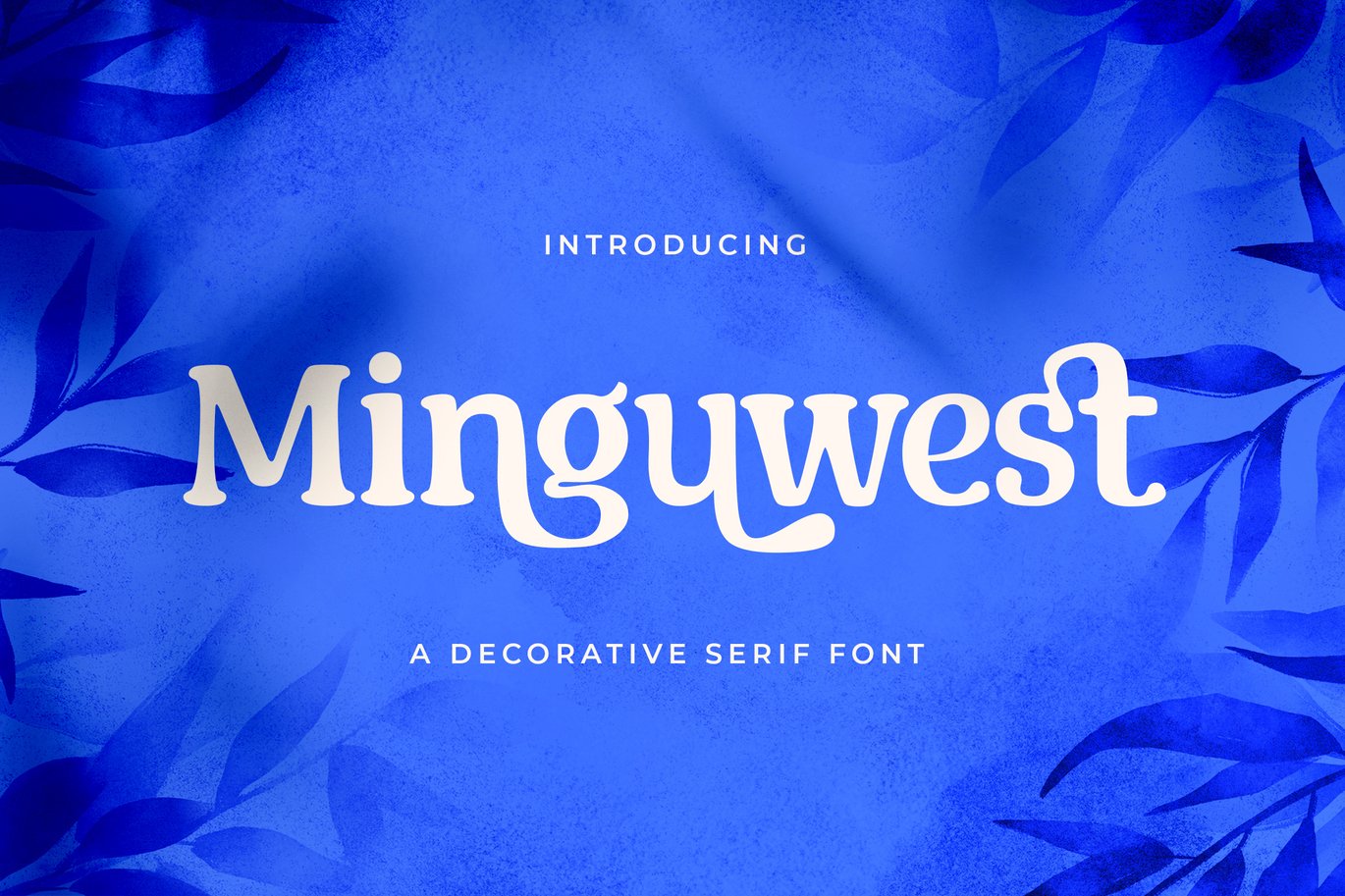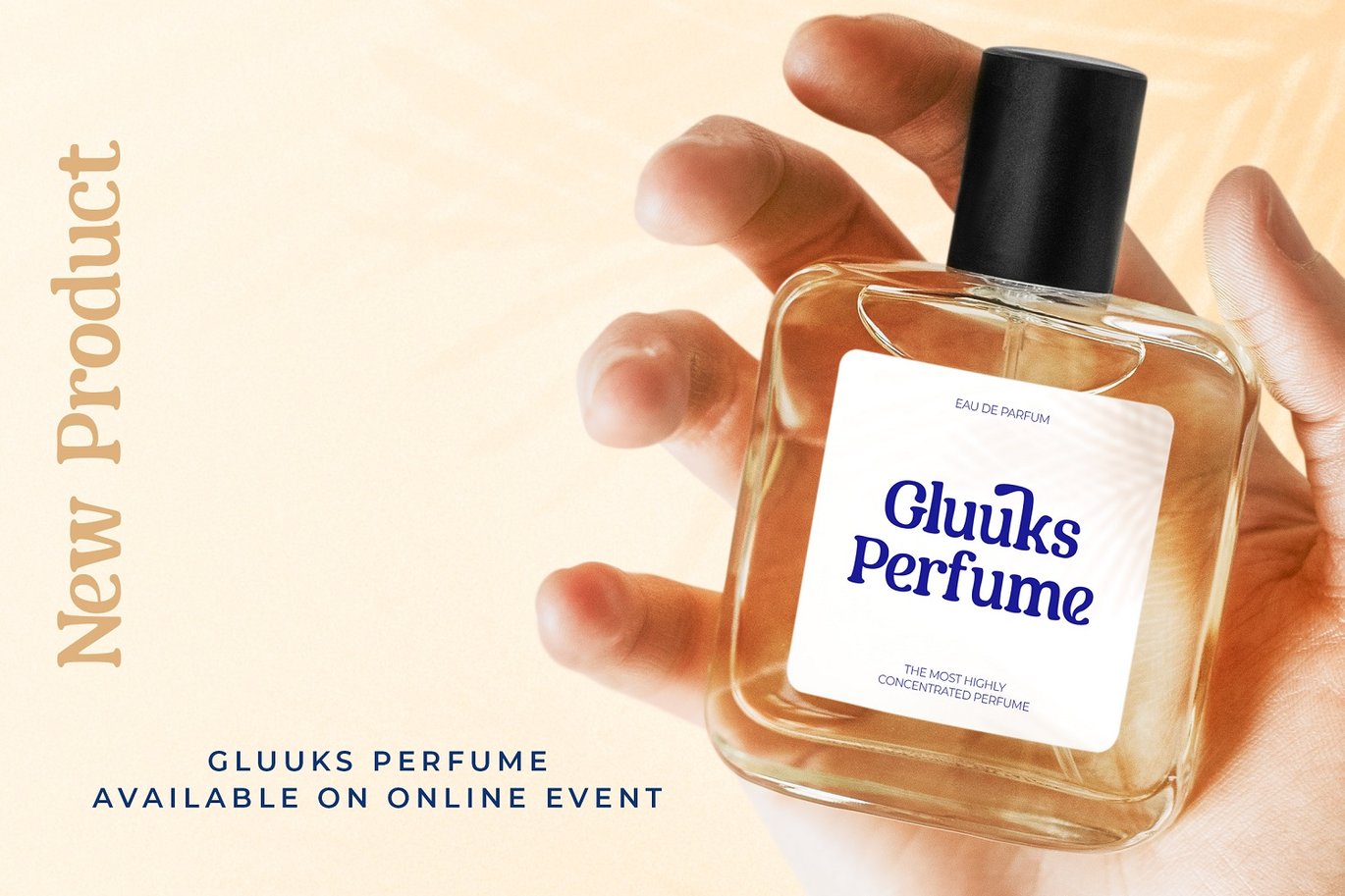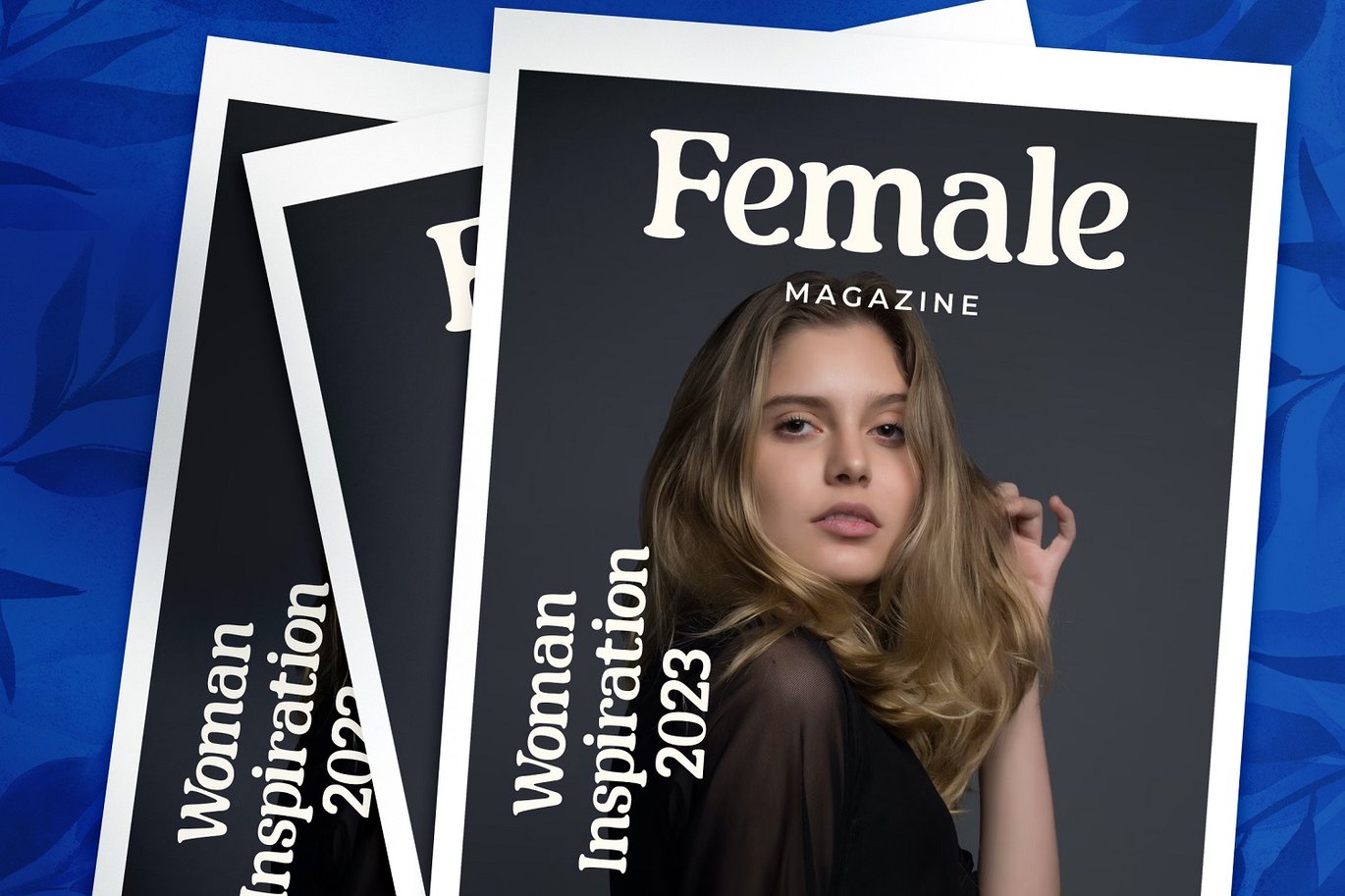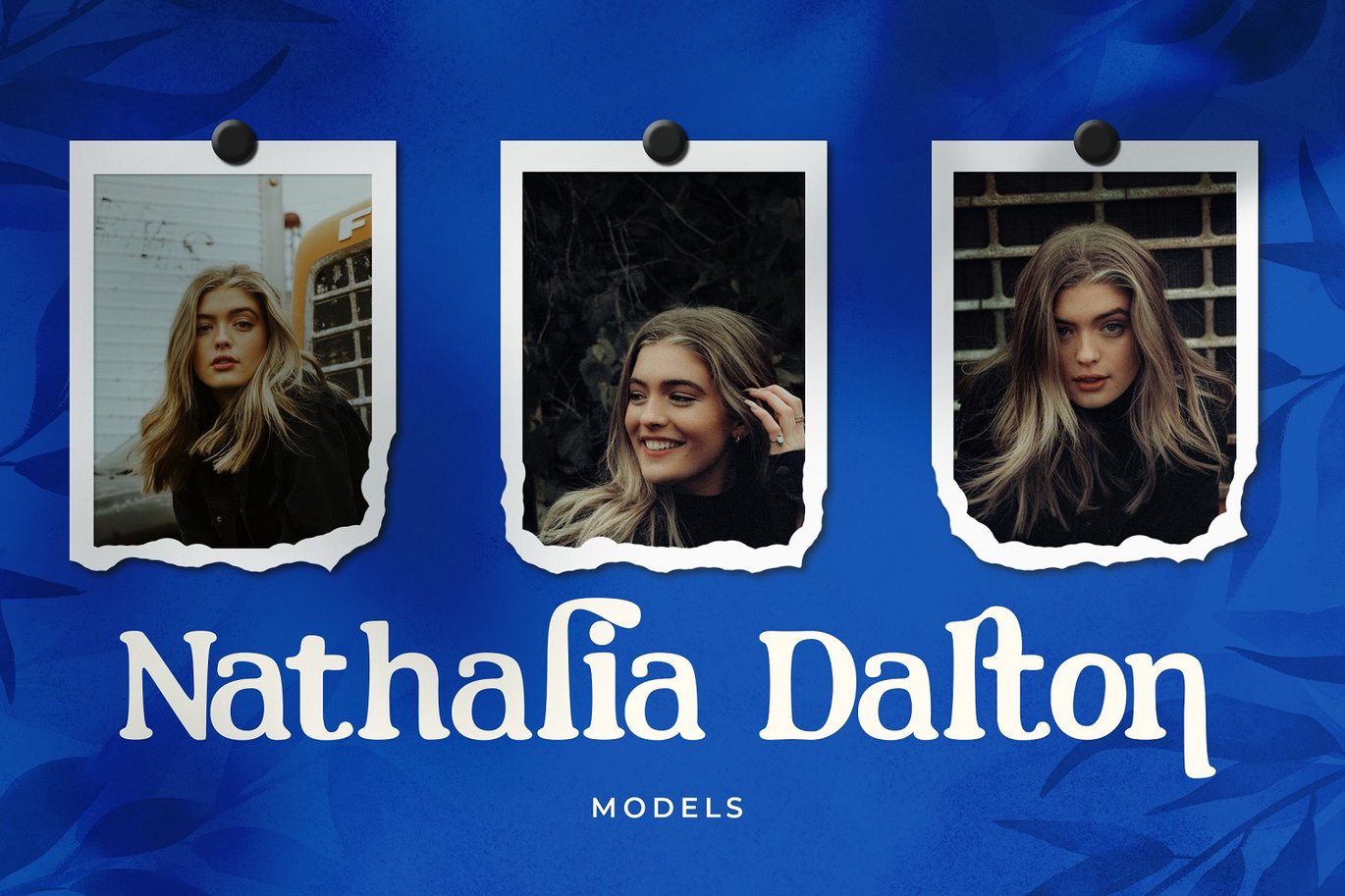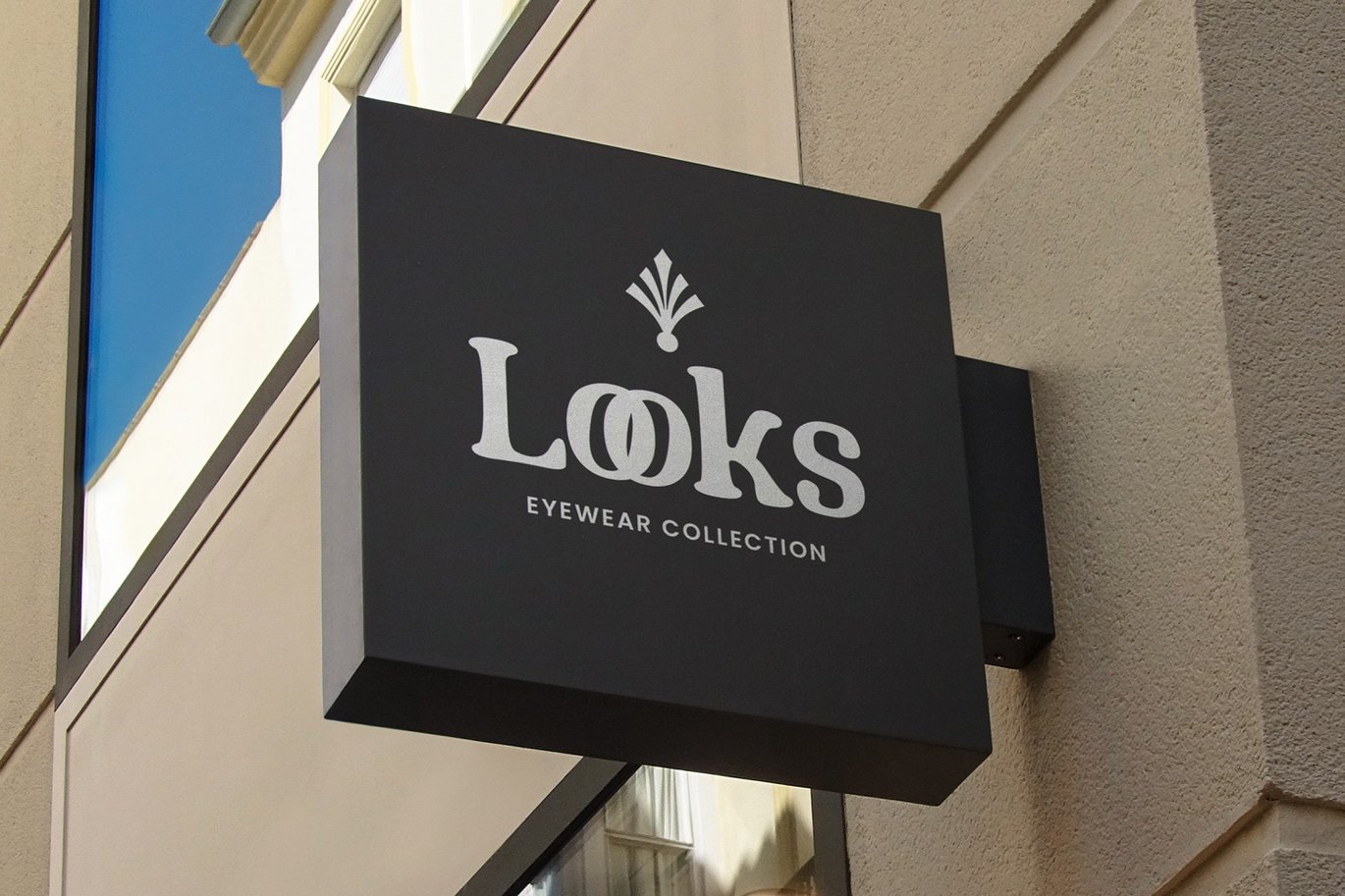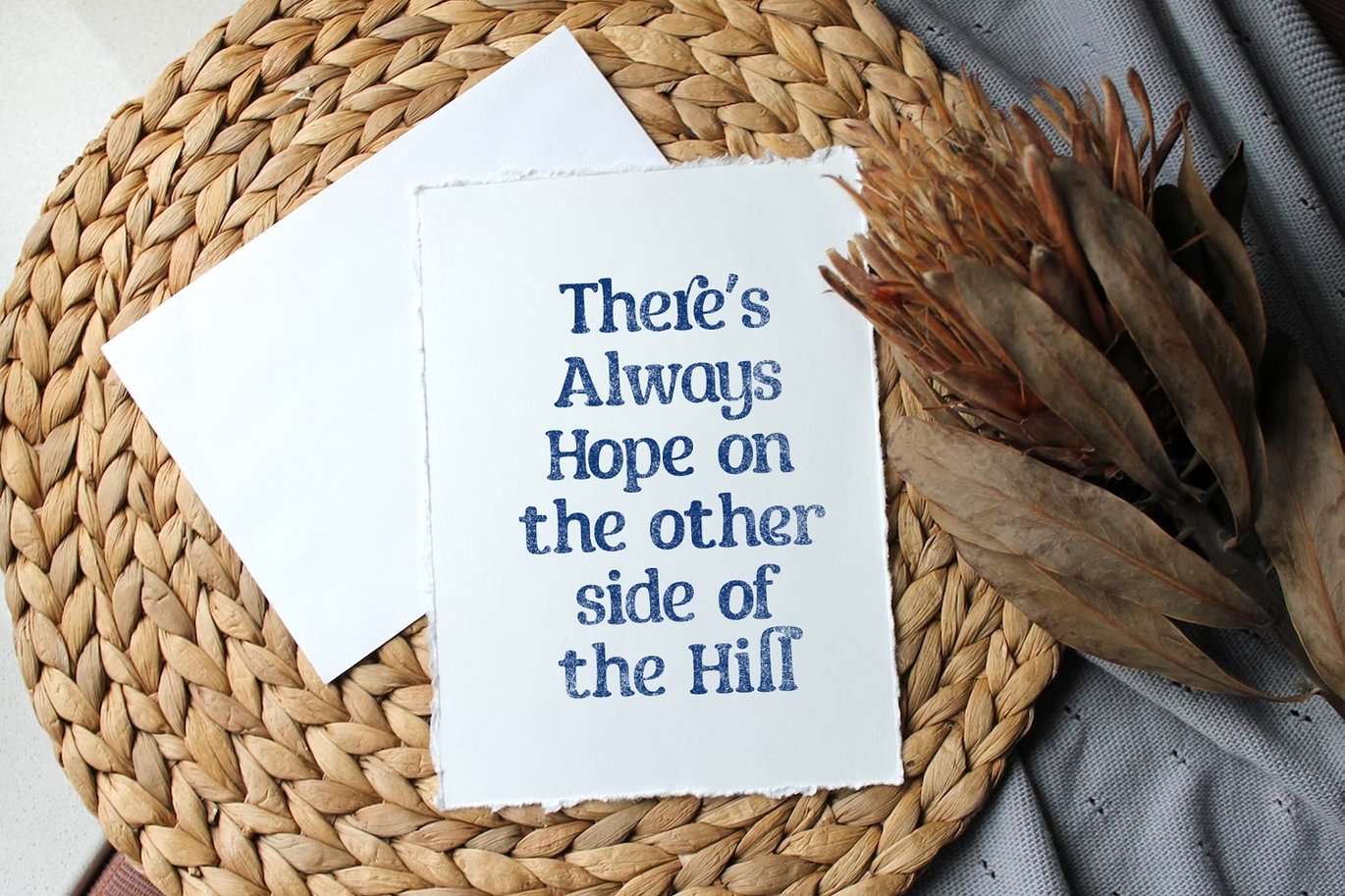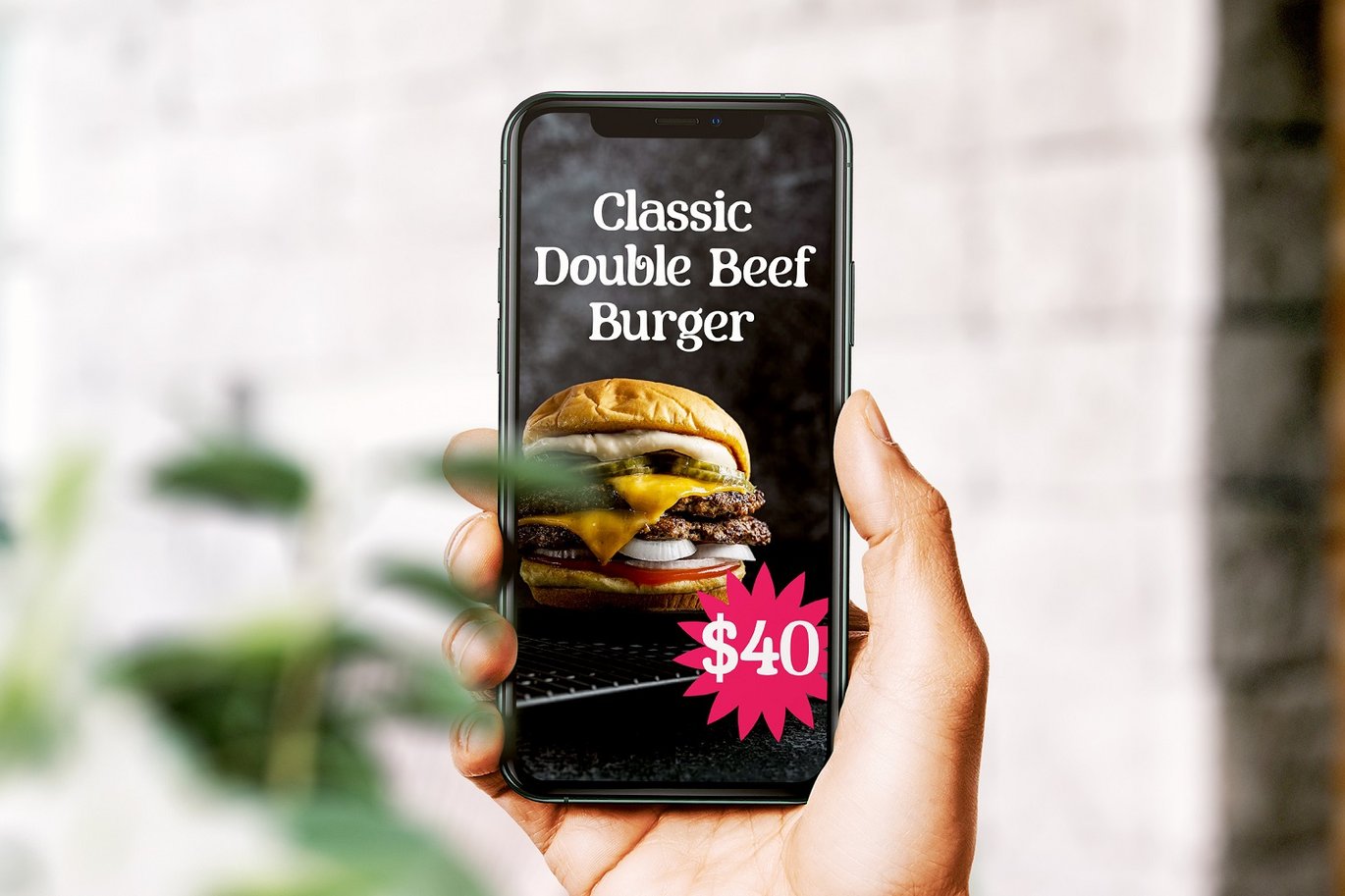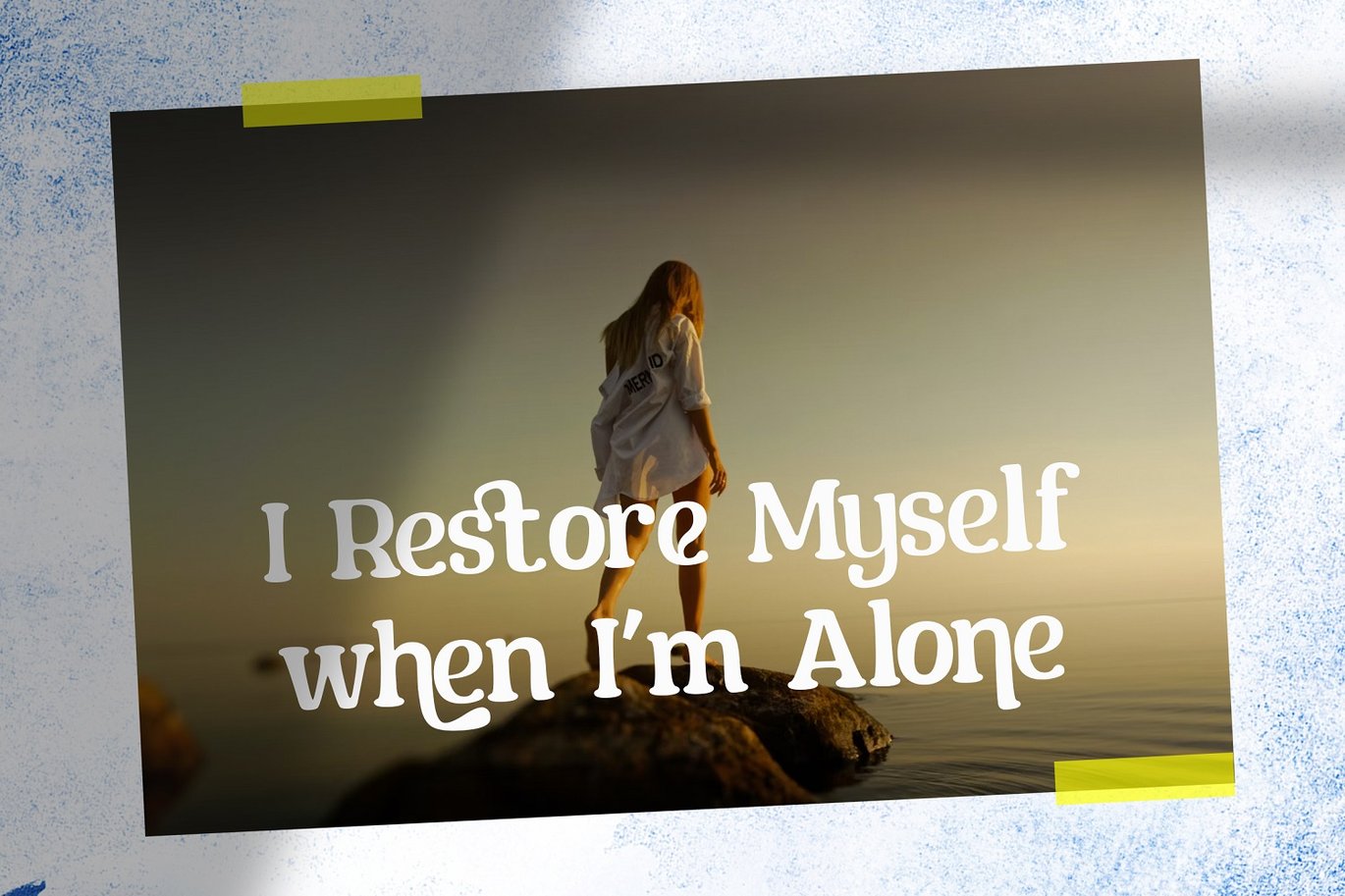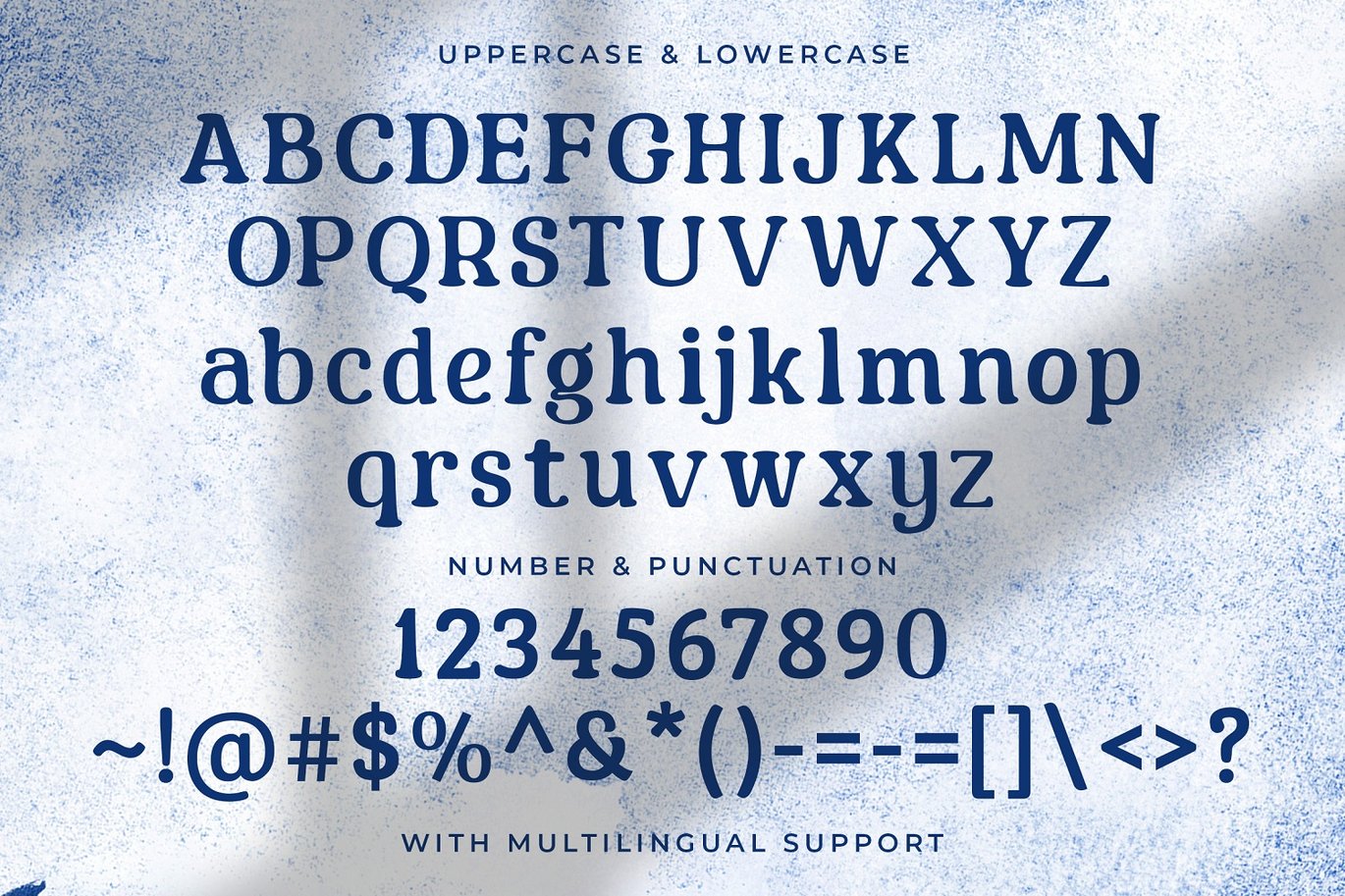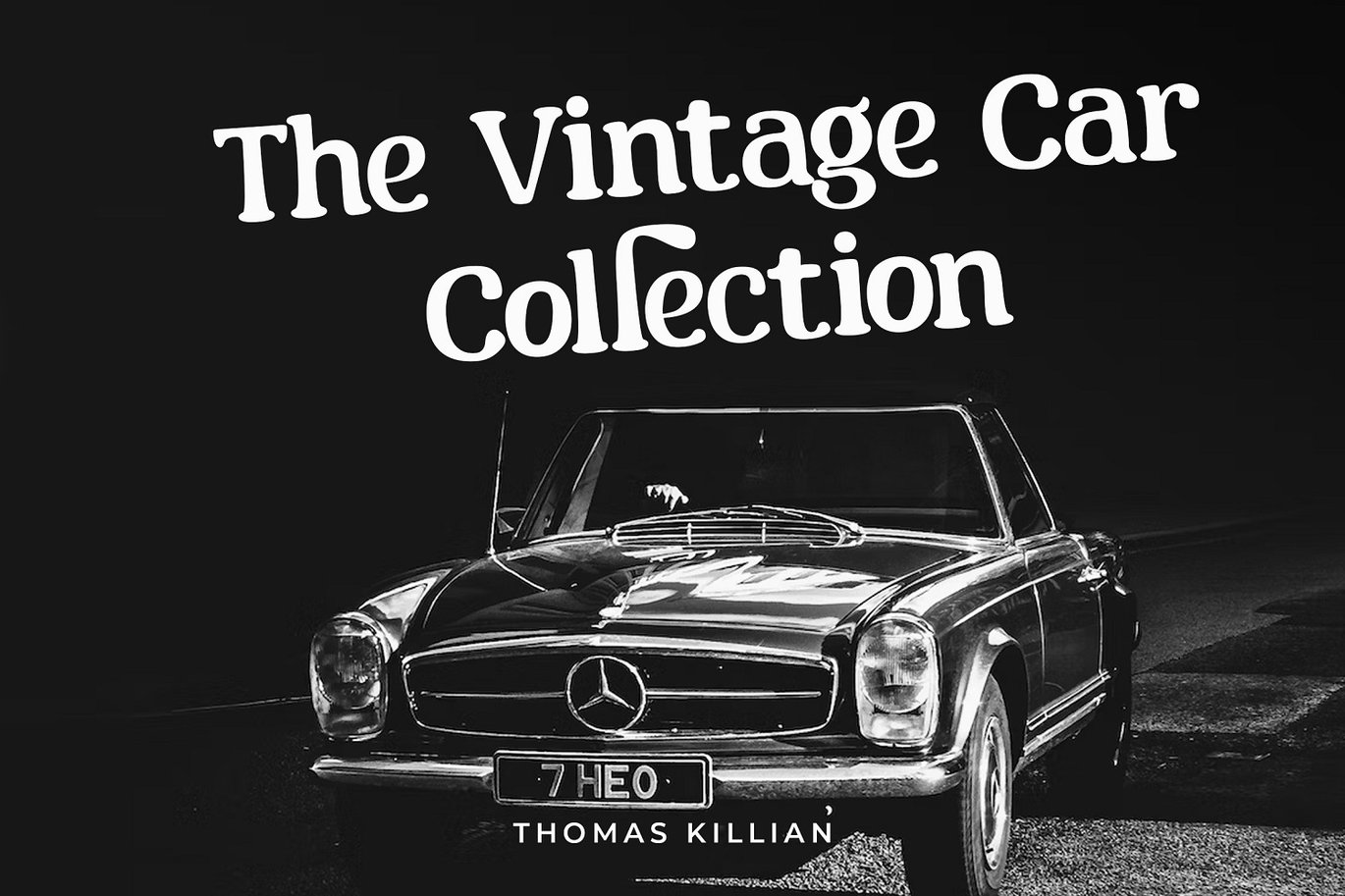
Minguest – Decorative Serif Font
Introducing Minguest – Decorative Serif Font
Minguest is an authentic and decorative serif font. It can easily be matched to an incredibly large set of projects, so add it to your creative ideas and notice how it makes them stand out!
- Alternates & Ligatures